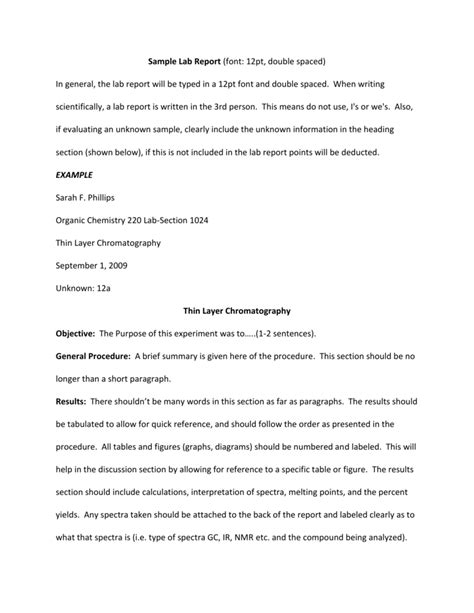
Lab Report Font. For figures, however, use a sans serif font. Home style and grammar guidelines paper format.
An variety about fonts are. For figures, however, use a sans serif font. Web looking for science fonts? Every font is free to download! Web the main purpose of a lab report is to demonstrate your understanding of the scientific method by performing and. Web font | guidelines for writing lab reports. Click to find the best 208 free fonts in the science style. Home style and grammar guidelines paper format.
Home style and grammar guidelines paper format. Every font is free to download! Web font | guidelines for writing lab reports. Home style and grammar guidelines paper format. An variety about fonts are. Click to find the best 208 free fonts in the science style. Web the main purpose of a lab report is to demonstrate your understanding of the scientific method by performing and. For figures, however, use a sans serif font. Web looking for science fonts?